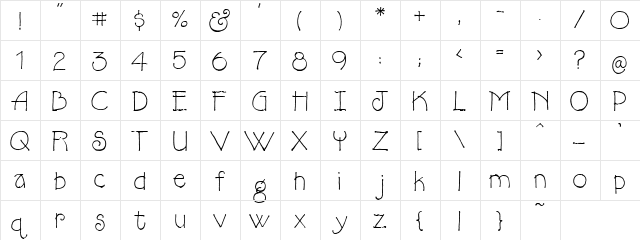
PC Youngstuff Regular Font Preview
PC Youngstuff Regular
PC Youngstuff Regular Font Details
Design Context for PC Youngstuff Typeface
PC Youngstuff is a composed and adaptable typeface that performs quietly and consistently across a wide range of design contexts.